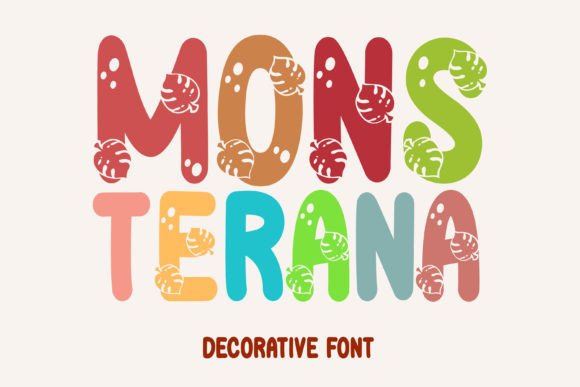
Feast your eyes on Monsterana Font, a decorative font that will make your designs scream summer! Picture this: a font so thick and juicy, it's like biting into a ripe watermelon on a hot summer day. And its uniqueness? It's like a sparkling ocean under the summer sun, a sight to behold.
With Monsterana Font, you can dive into a world of design possibilities. Whether you're crafting stunning holiday cards, creating eye-catching posters, or adding a touch of summery fun to your branding, this font is your ultimate companion. Its playful, thick letters dance across the page, evoking the carefree spirit of summer.
Imagine your holiday cards adorned with Monsterana Font's cheerful, vibrant letters, spreading joy and warmth like a summer breeze. Your designs will be the talk of the town, the envy of all who lay their eyes upon them.
But Monsterana Font isn't just for holiday cards; it's an all-rounder, ready to add a splash of summer to any project you throw its way. Unleash your creativity and explore a world of possibilities. Let Monsterana Font be your muse, your partner in design brilliance.